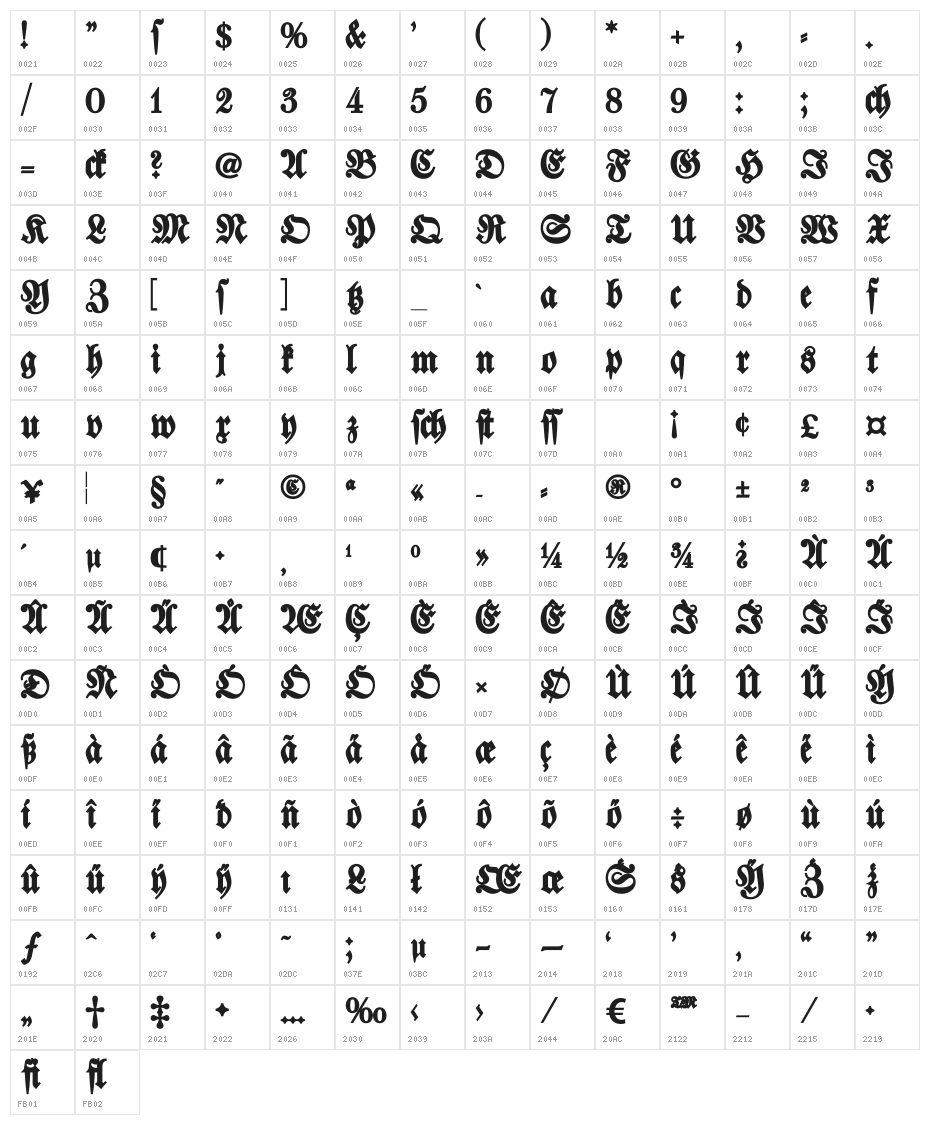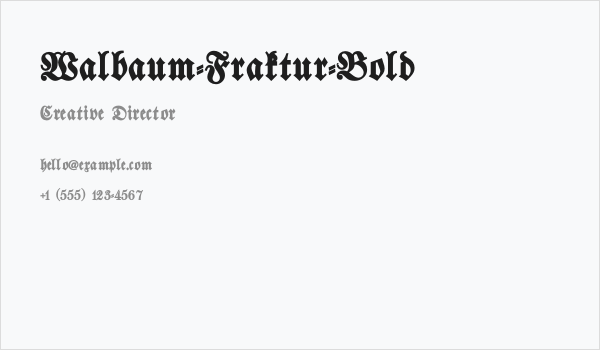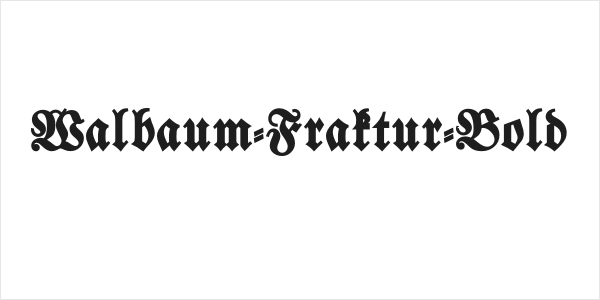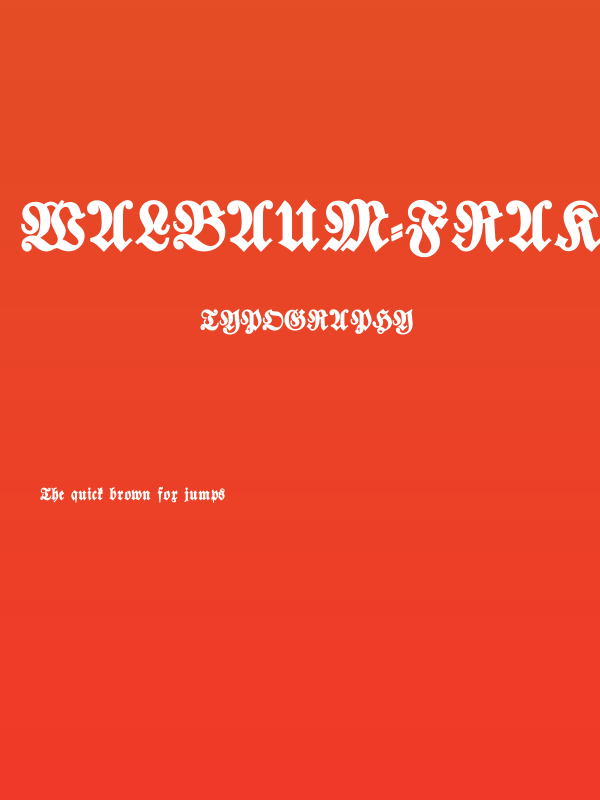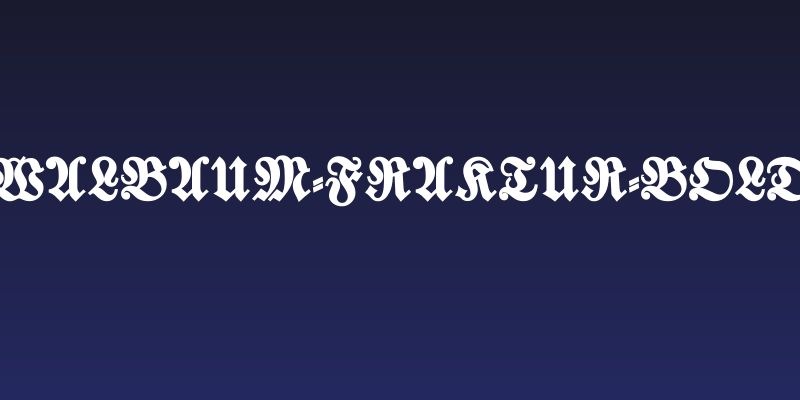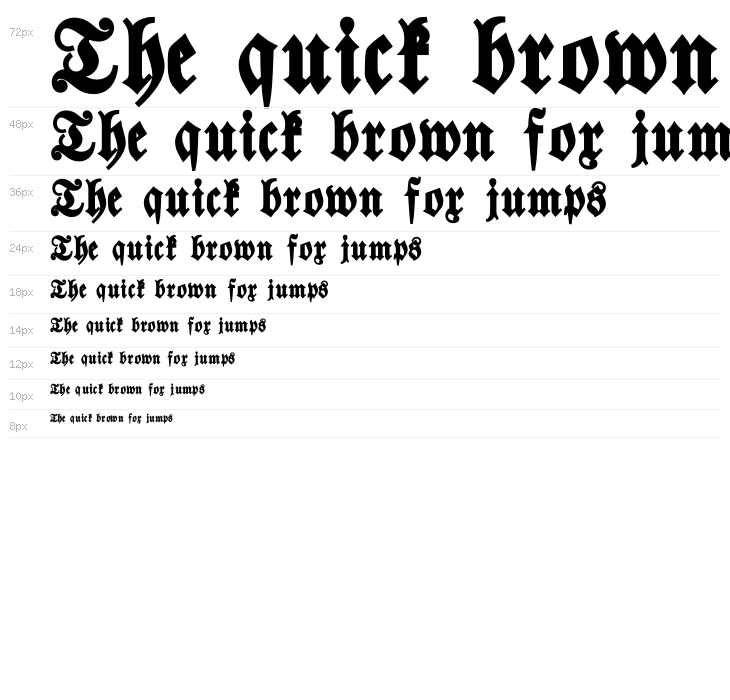
Walbaum-Fraktur-Bold Font
Walbaum-Fraktur-Bold Description
This font exudes a classic and bold presence, characterized by its intricate and ornate design typical of Blackletter styles. The letters are sharply defined with dramatic strokes and elaborate curves, creating a sense of historical elegance. The uppercase characters are particularly striking, with their elaborate flourishes and strong vertical lines. The lowercase letters maintain the same level of detail, offering a cohesive and visually engaging appearance. Numbers and special characters are equally ornate, ensuring consistency across all text elements. This font is ideal for projects that require a touch of tradition and sophistication.
| Use Case | Headlines, Logos, Decorative text |
| Proposed Projects | Suitable for certificates, invitations, historical documents, branding for luxury products, and decorative signage. |